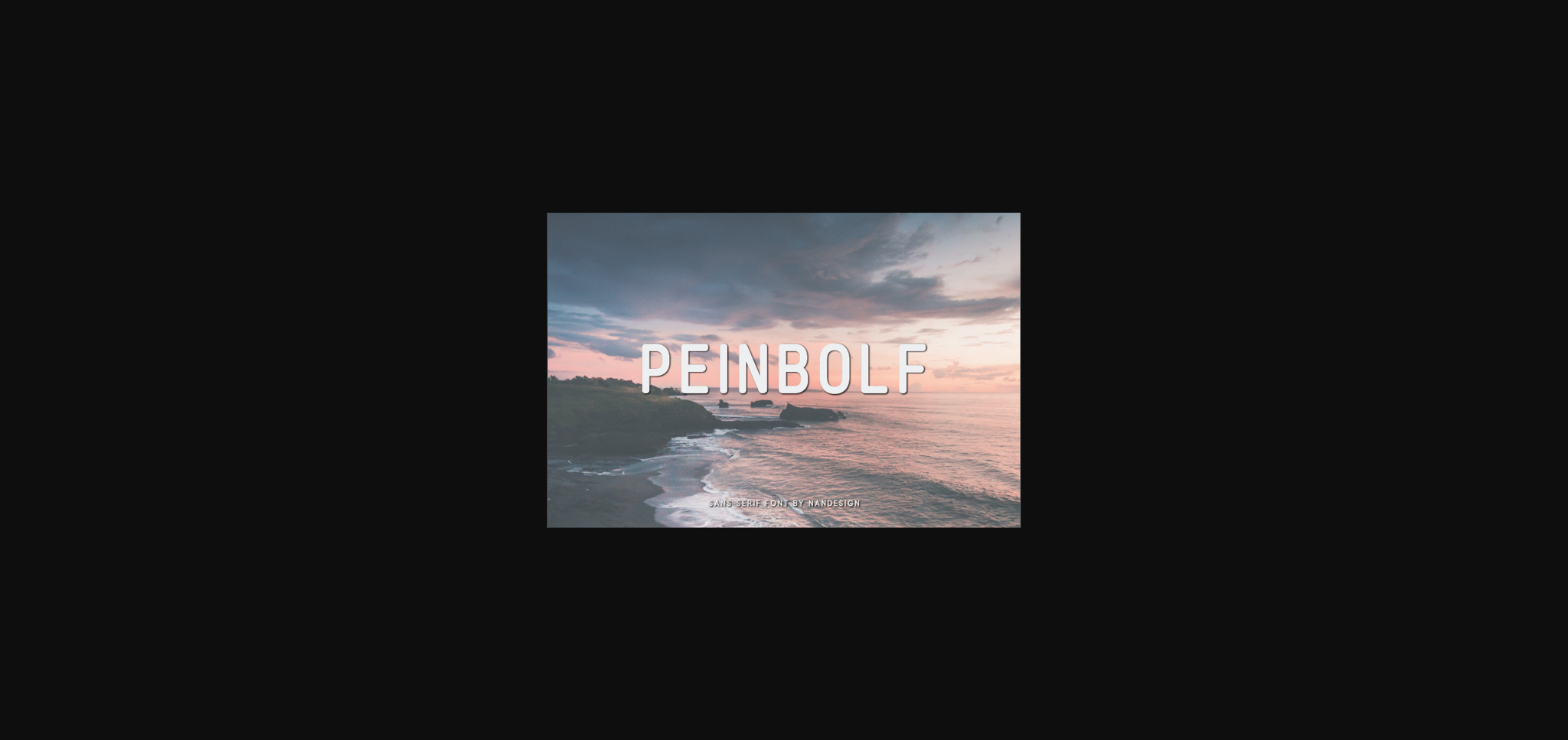
About Peinbolf Font
Peinbolf is a minimal, yet elegant sans serif font. Suitable to a wide variety of designs due to its neat and simple style, Peinbolf has the potential to become your favorite go-to font, no matter the occasion!